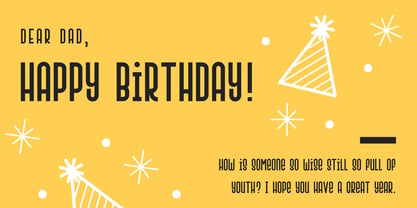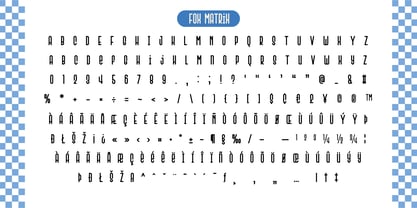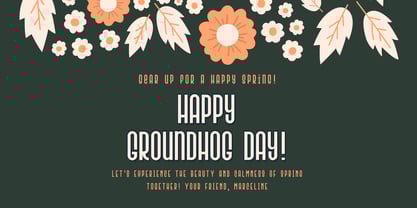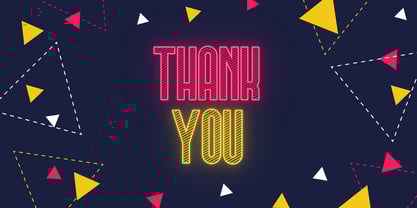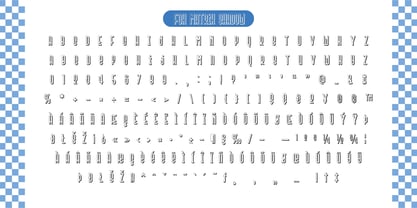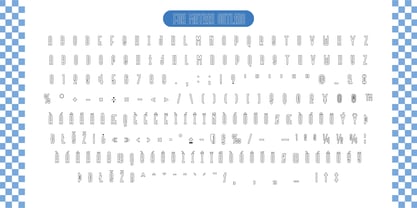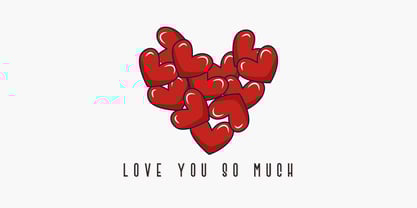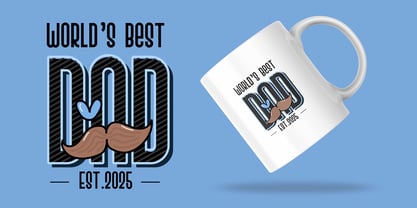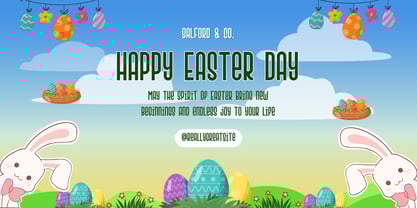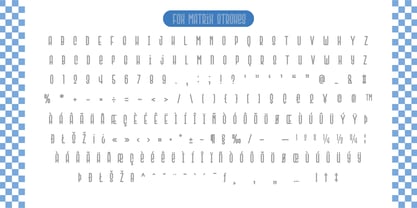
Fox Matrix
La familia tipográfica Fox Matrix fue diseñada por Rattana Rattanawan y publicada por Fox7. Fox Matrix contiene 4 estilos y opciones de paquete familiar. Más información sobre esta familia
Fox Matrix is a modern and eye-catching display font that combines a futuristic aesthetic with a stylish geometric design. Featuring four distinct styles—Regular, Strokes, Outline, and Shadow—this font offers dynamic versatility for various creative projects. Its bold and high-impact look makes it perfect for posters, branding, headlines, and digital designs that demand attention.
With its unique blend of clean lines and striped textures, Fox Matrix adds a sense of movement and energy to any composition. Whether you're working on gaming graphics, sci-fi themes, or urban branding, this font delivers a striking and modern feel.
Elevate your design with Fox Matrix and make a bold statement!